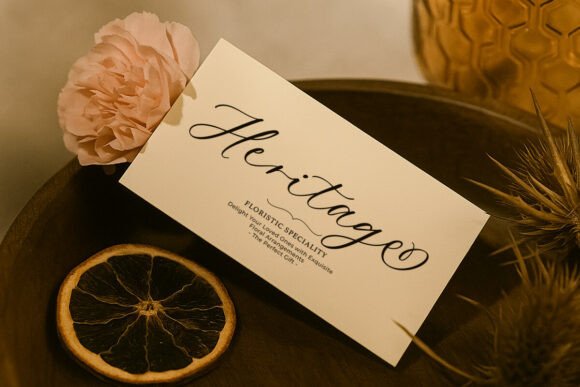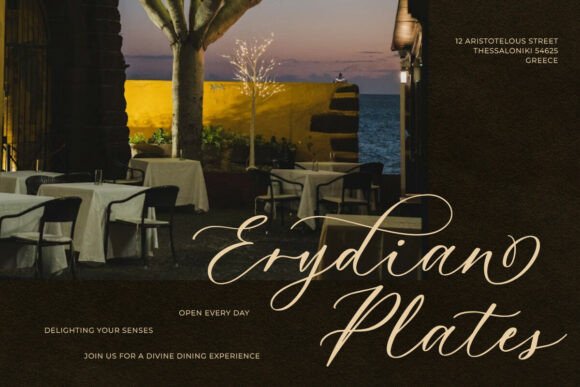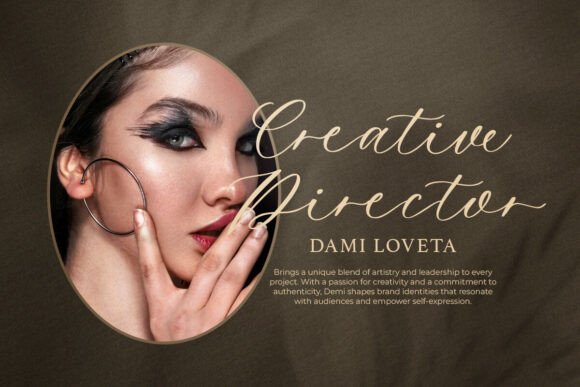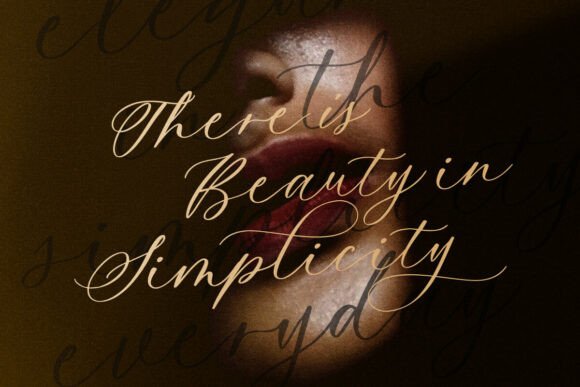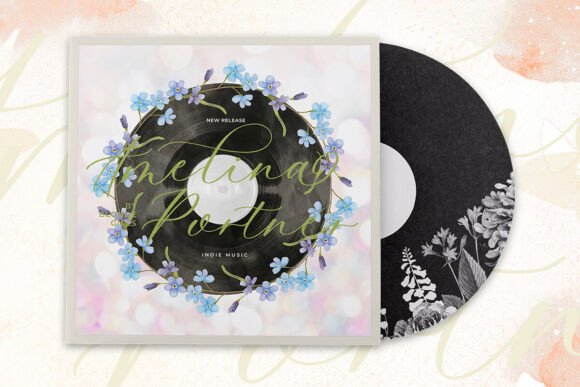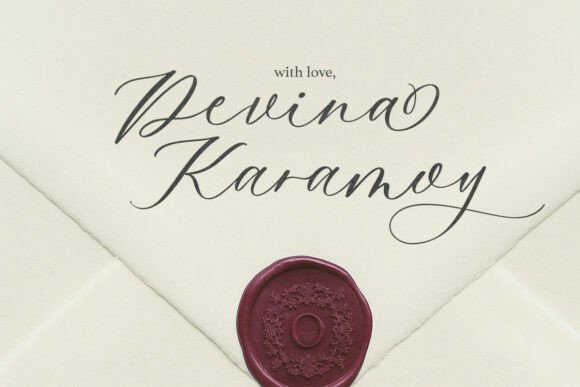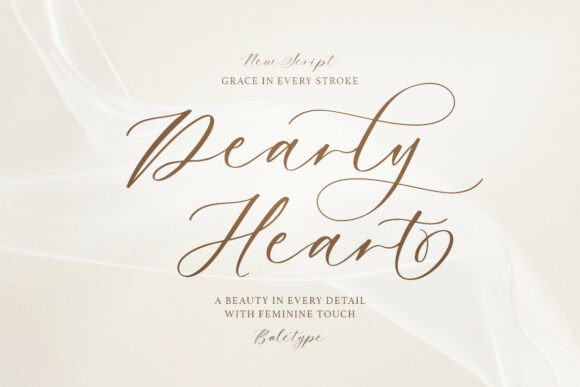
The Perfect Script for Your Heart’s Desire
Have you ever found yourself scribbling out a love letter or a heartfelt message, only to be captivated by the way the words flow onto the page? That’s the magic of Dearly Heart Font, a beautifully crafted handwritten calligraphy script that brings warmth and sophistication to any project.
Designed with an elegant and romantic touch, Dearly Heart Font is perfect for designers who want to add a touch of refinement and emotional appeal to their work. With its smooth calligraphic flow, ligatures, and alternates, this font offers endless possibilities for creating unique and personalized designs.
Whether you’re crafting a signature logo, wedding invitation, or social media quote, Dearly Heart Font is the perfect choice for designers who want to add a dash of elegance and charm to their projects.
Dearly Heart Font Key Features
• Unique Characteristics: This beautiful script font features flowing connections between letters, giving it a handwritten feel that is perfect for creative projects, invitations, and other special occasions.
• Font Style: This elegant script font is available in a single style, making it easy to use and customize in various design projects.
Dearly Heart Font Review
I’ve had the chance to play around with the “Dearly Heart Font” and here are my honest thoughts.
• Unique design: The font has a lovely, handwritten feel to it, making it perfect for creating a personal touch in your designs.
• Good legibility: Despite its script-like appearance, the font is surprisingly easy to read, even at smaller font sizes.
• Limited character set: The font only includes basic Latin characters, which might be a limitation for designers working with non-English languages.
• No bold/italic variants: While the font looks great, it would be nice to have bold and italic versions to add more depth to your designs.
Overall, I think the “Dearly Heart Font” is a lovely addition to any designer’s toolkit. Its unique design and good legibility make it perfect for creating a personal touch in your designs. However, its limitations might make it less suitable for larger projects or those requiring a more extensive character set.
Tips for Getting the Most Out of Dearly Heart Font
Use Dearly Heart Font to add a touch of elegance and sophistication to your designs. Pair it with a bold font for a striking contrast, or use it as a title font to grab attention. Experiment with different font sizes and colors to create a unique look.
Dearly Heart Font is perfect for creating wedding invitations, greeting cards, and other romantic designs. It’s also great for adding a touch of whimsy to children’s party invitations or birthday cards.